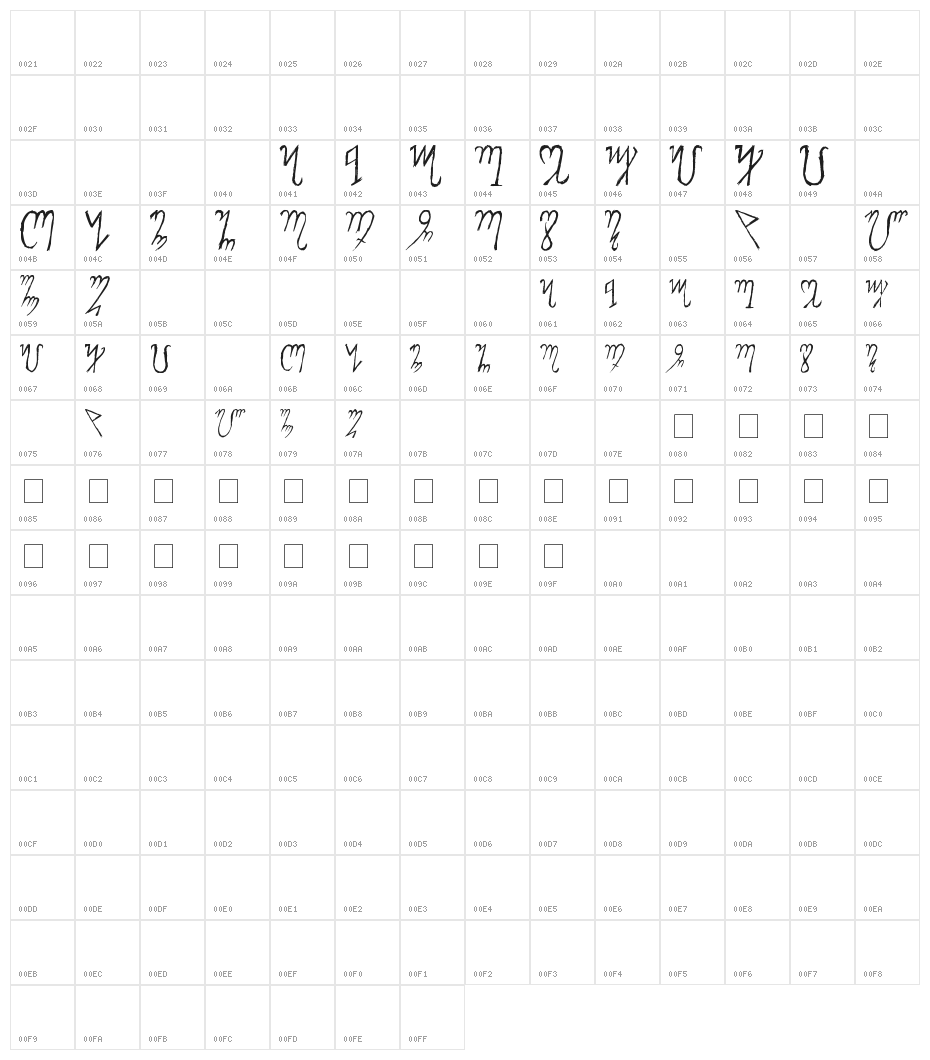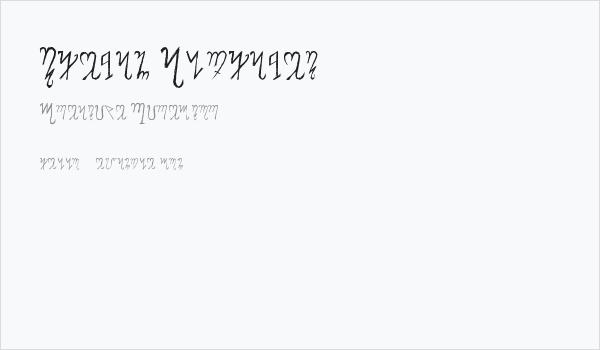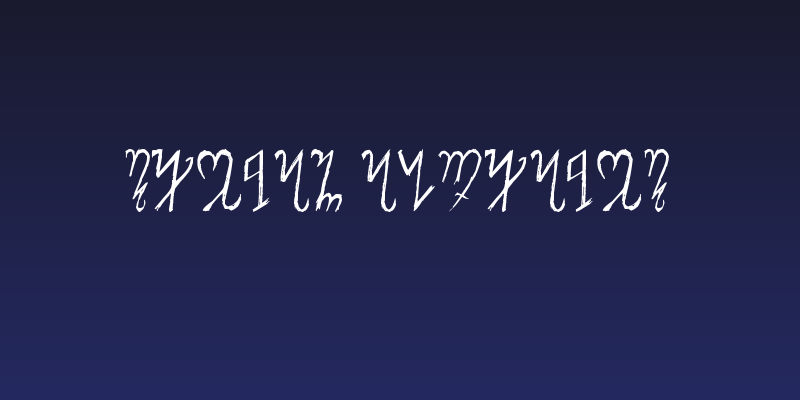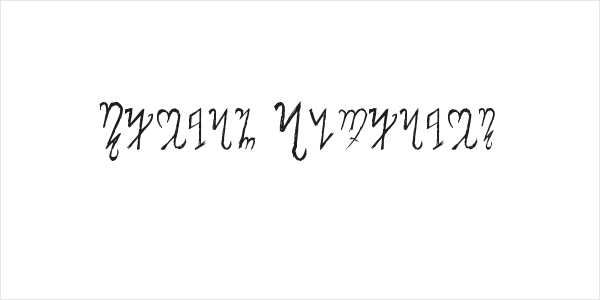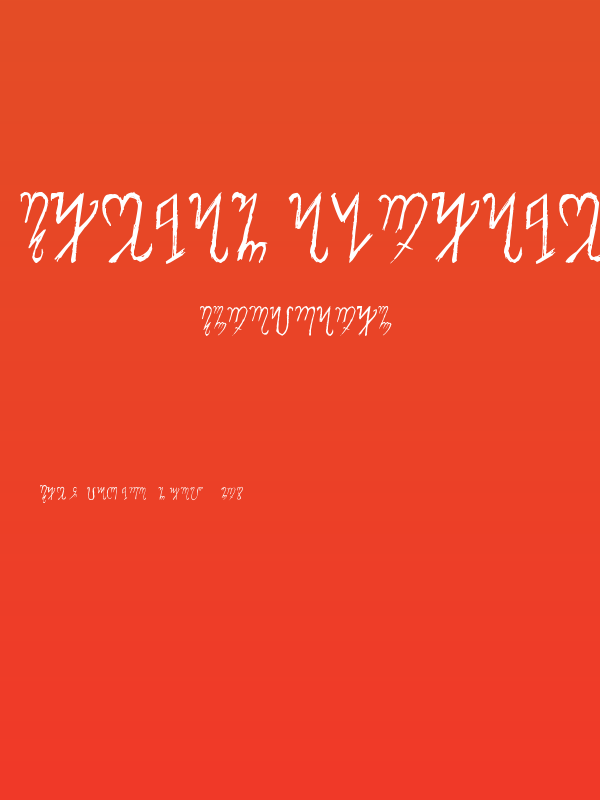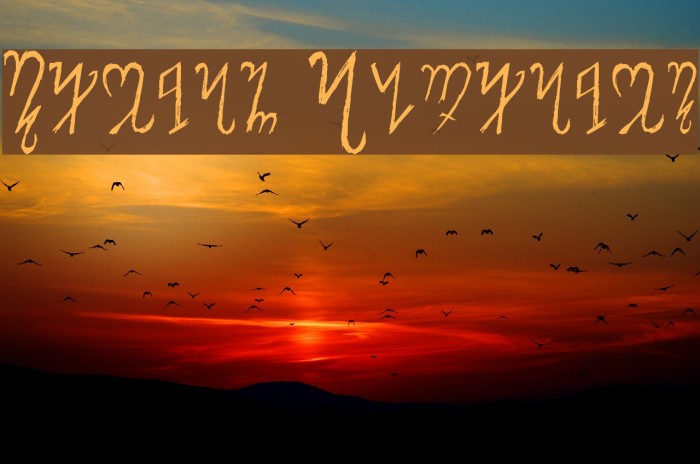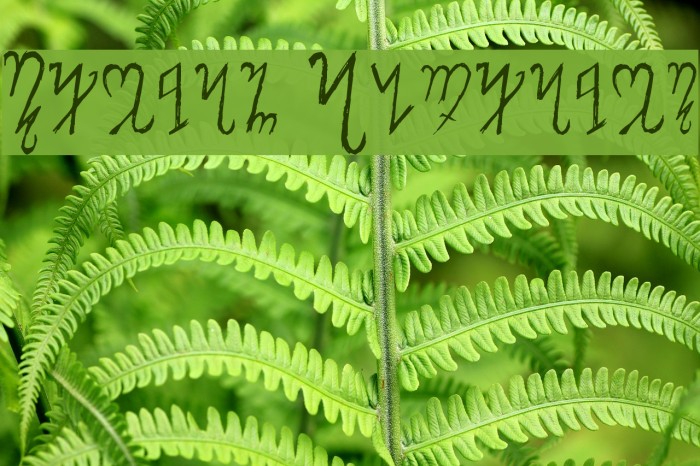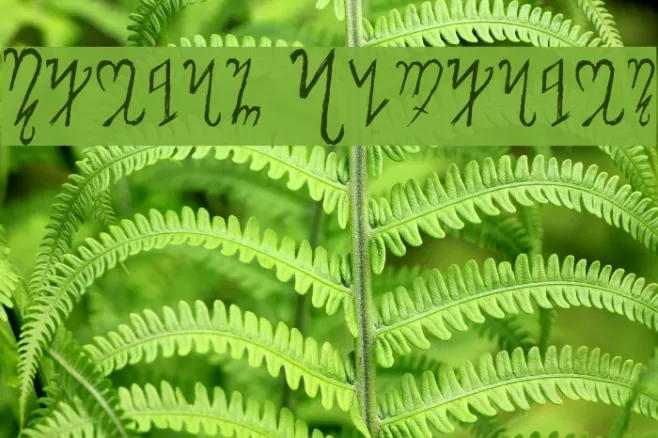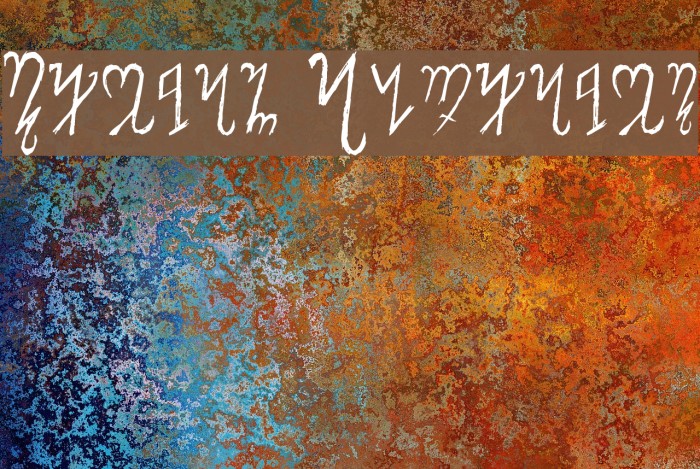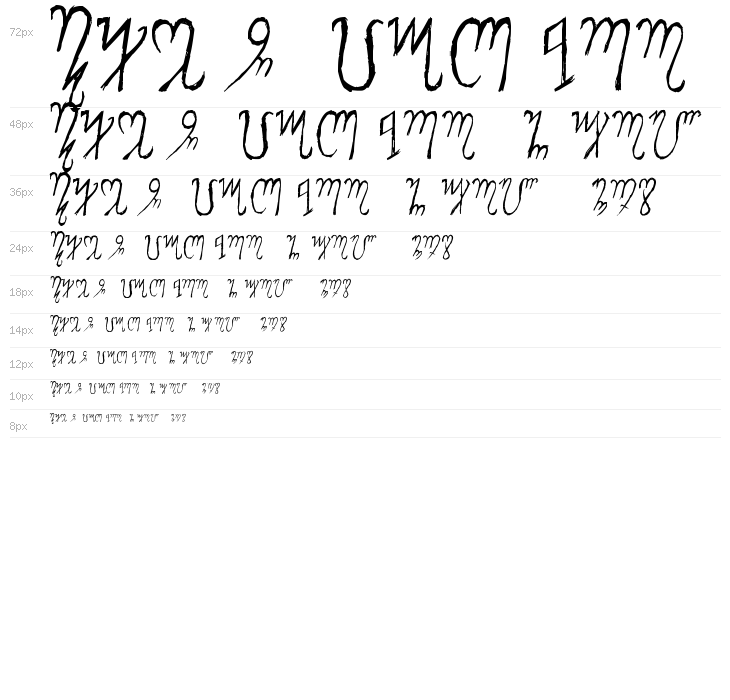
Theban Alphabet Font
Theban Alphabet Description
This script is a decorative and mystical alphabet, often associated with esoteric and magical contexts. The characters are uniquely stylized with sharp angles and flowing curves, creating an enigmatic and ancient appearance. Each symbol is distinct, with a hand-drawn quality that suggests a historical or mystical origin. The script is not used for standard writing but rather for symbolic or ritualistic purposes. Its aesthetic is both mysterious and captivating, making it suitable for thematic designs that require an arcane or magical touch.
| Overall Style | Mystical, Enigmatic |
| Use Case | Thematic designs, Symbolic writing |
| Proposed Projects | Ideal for use in fantasy games, magical book designs, or themed event decorations. |